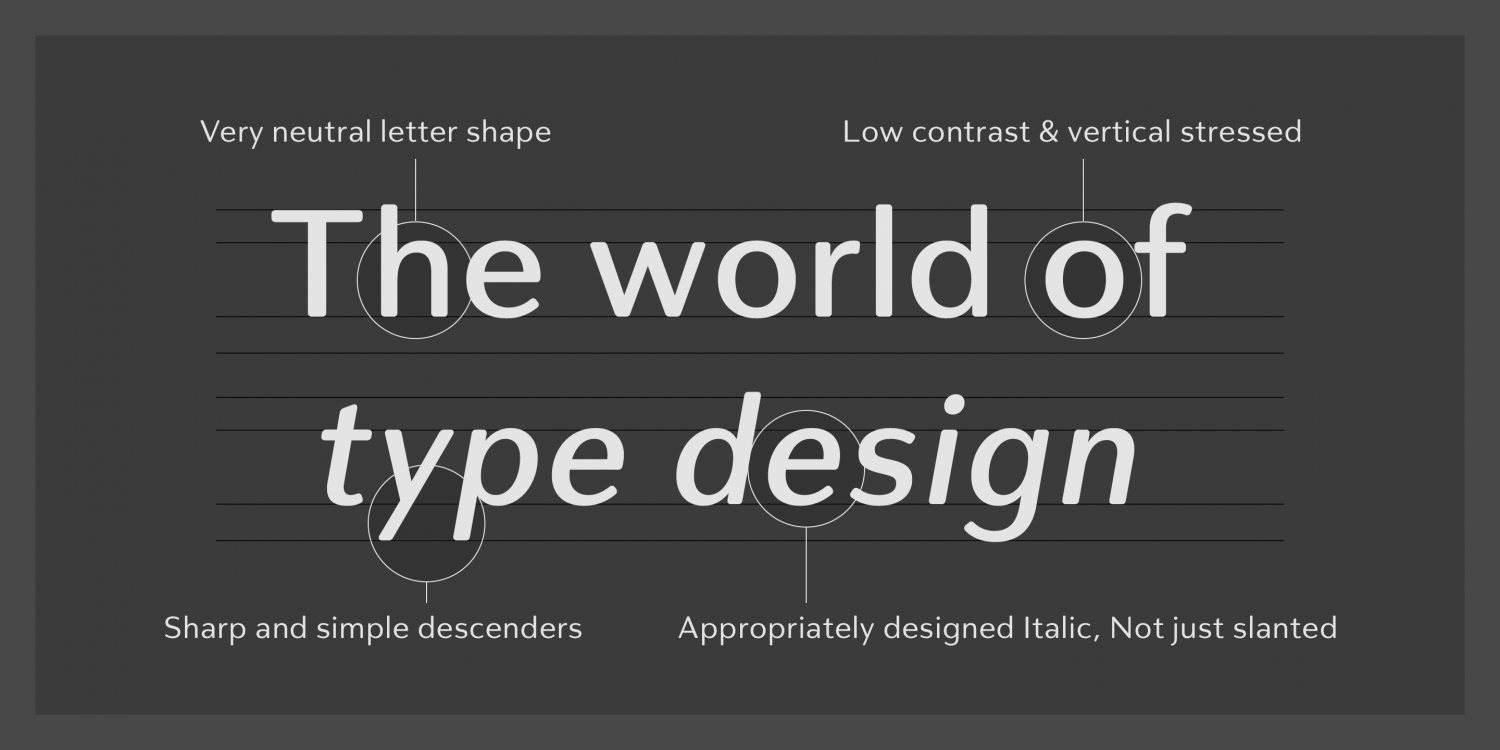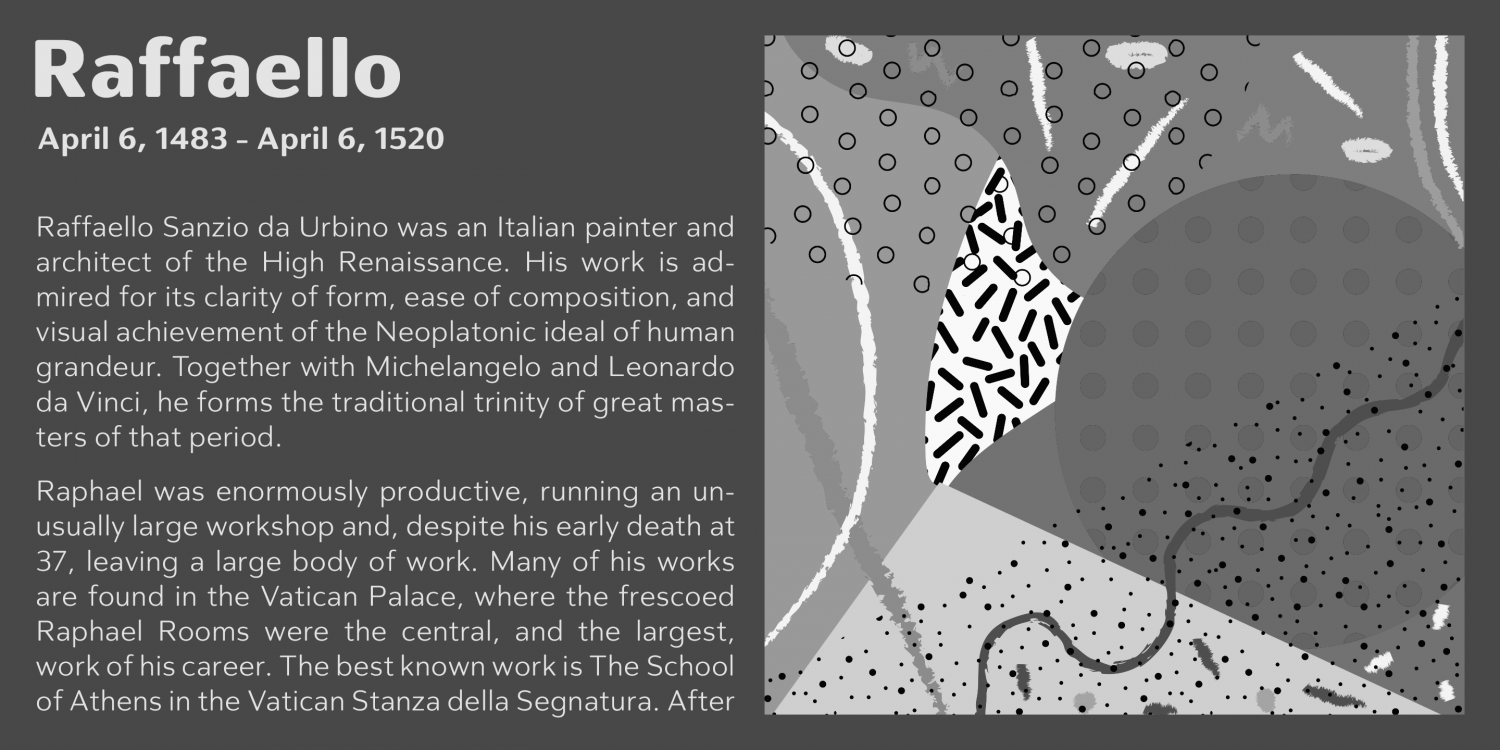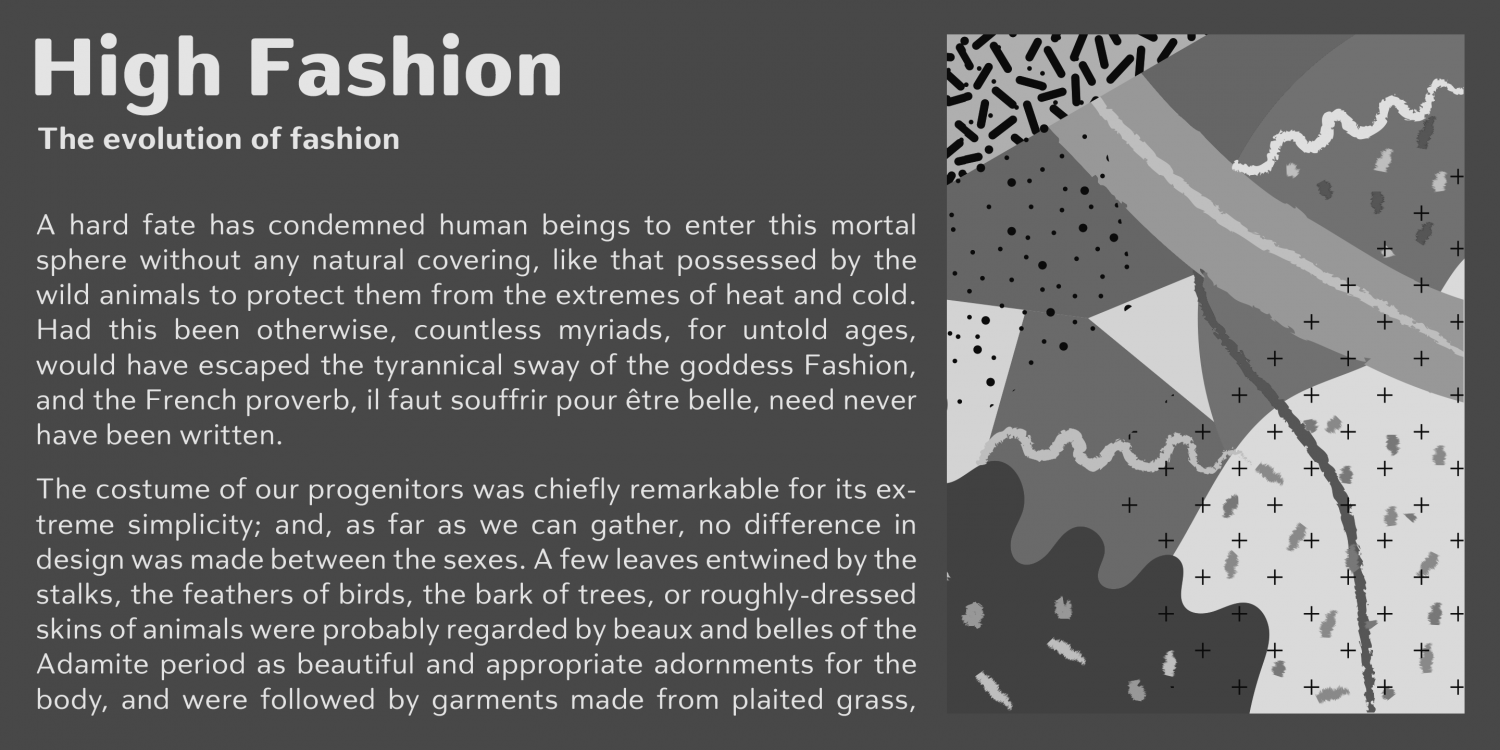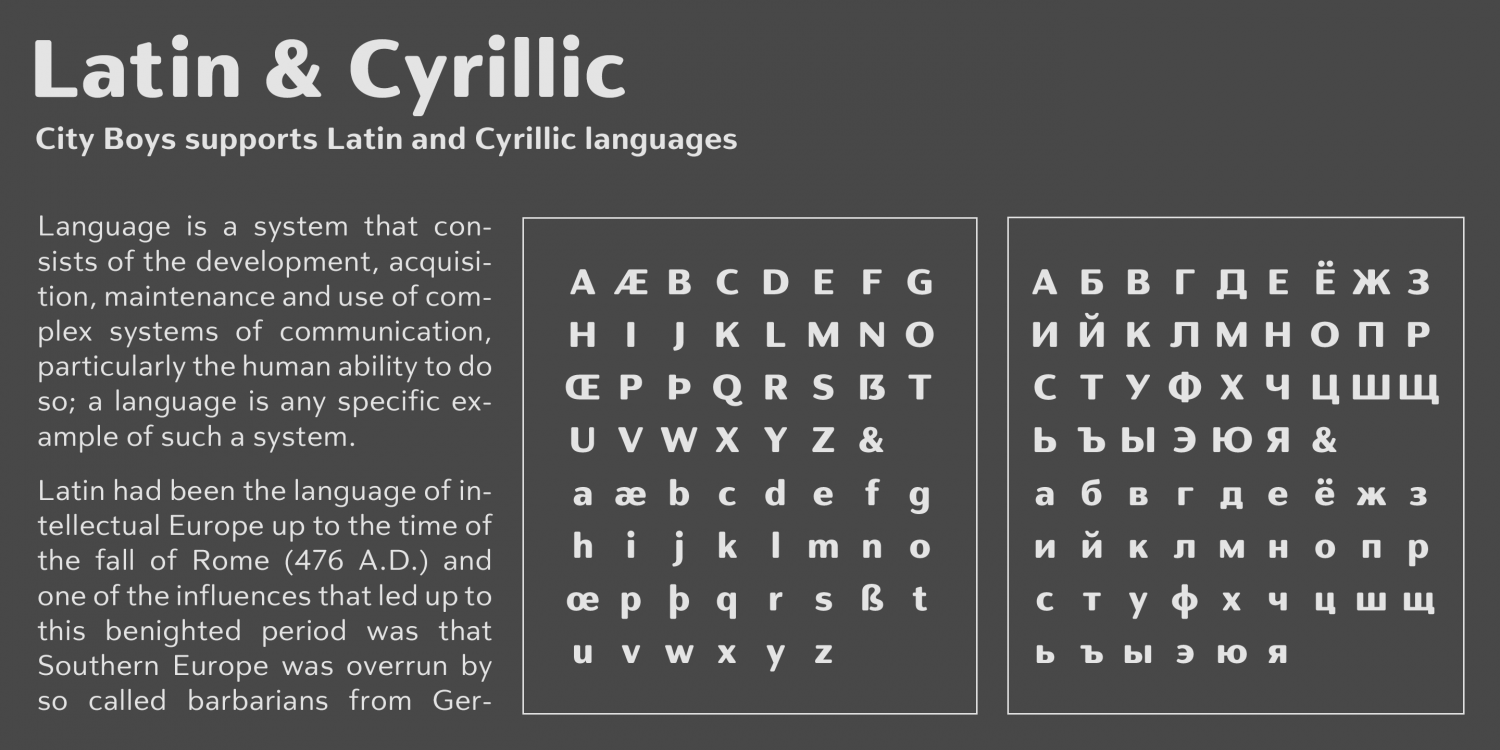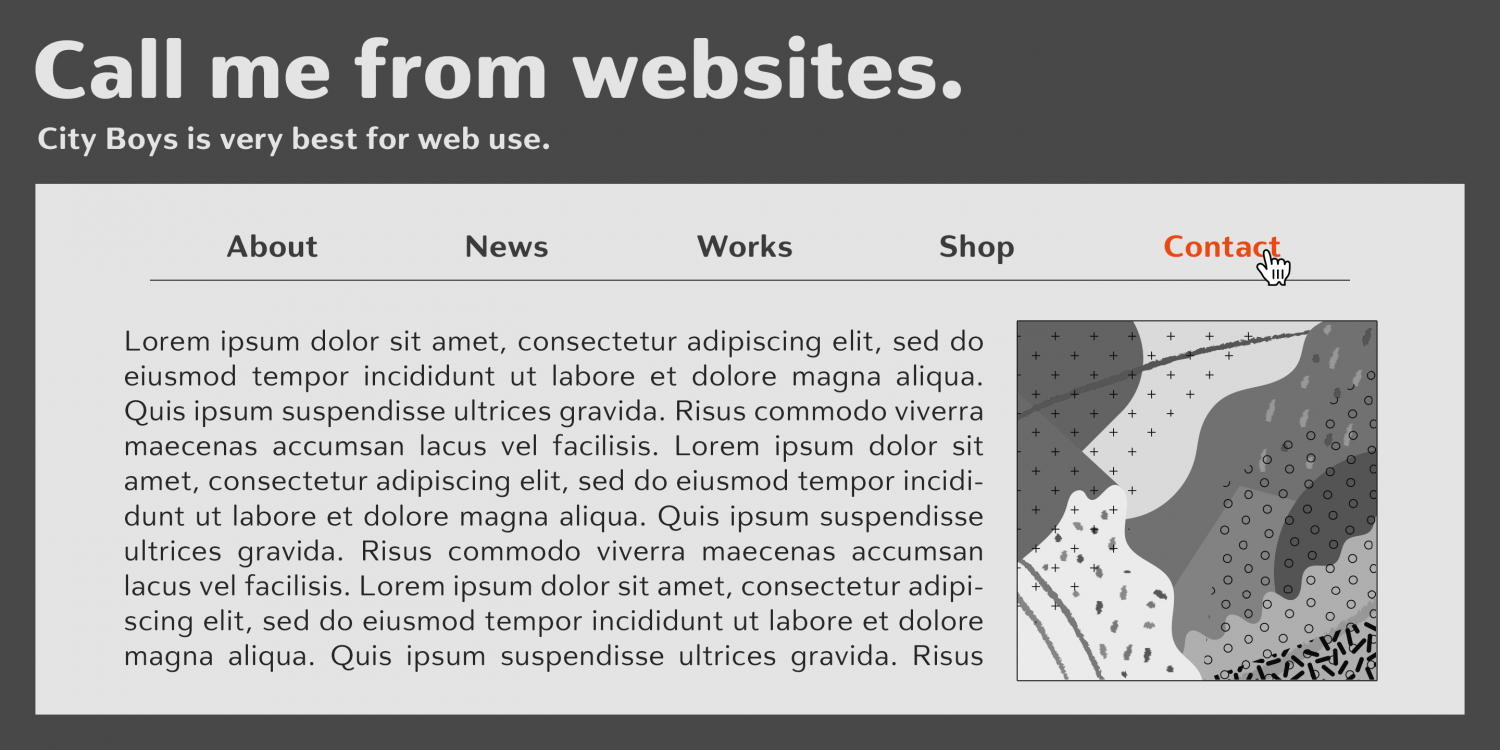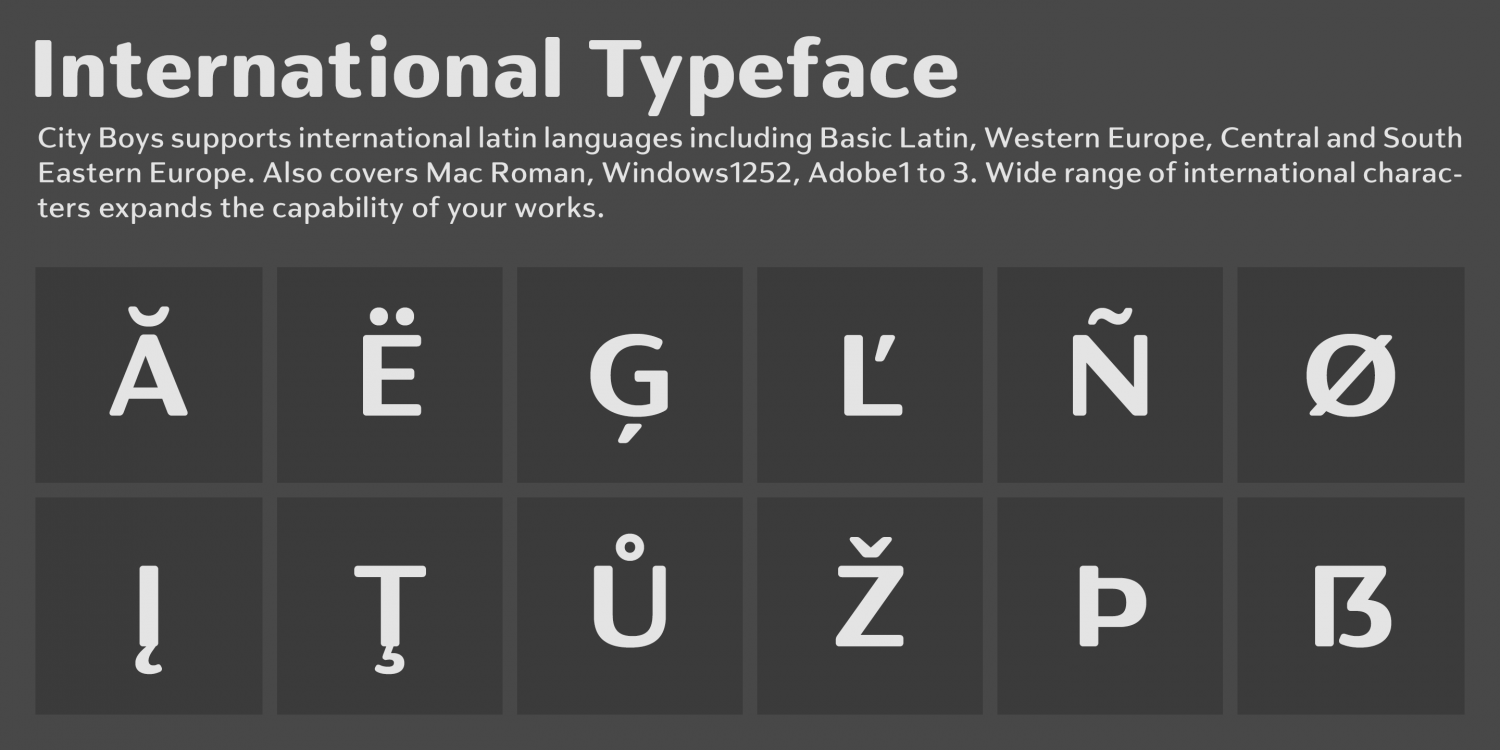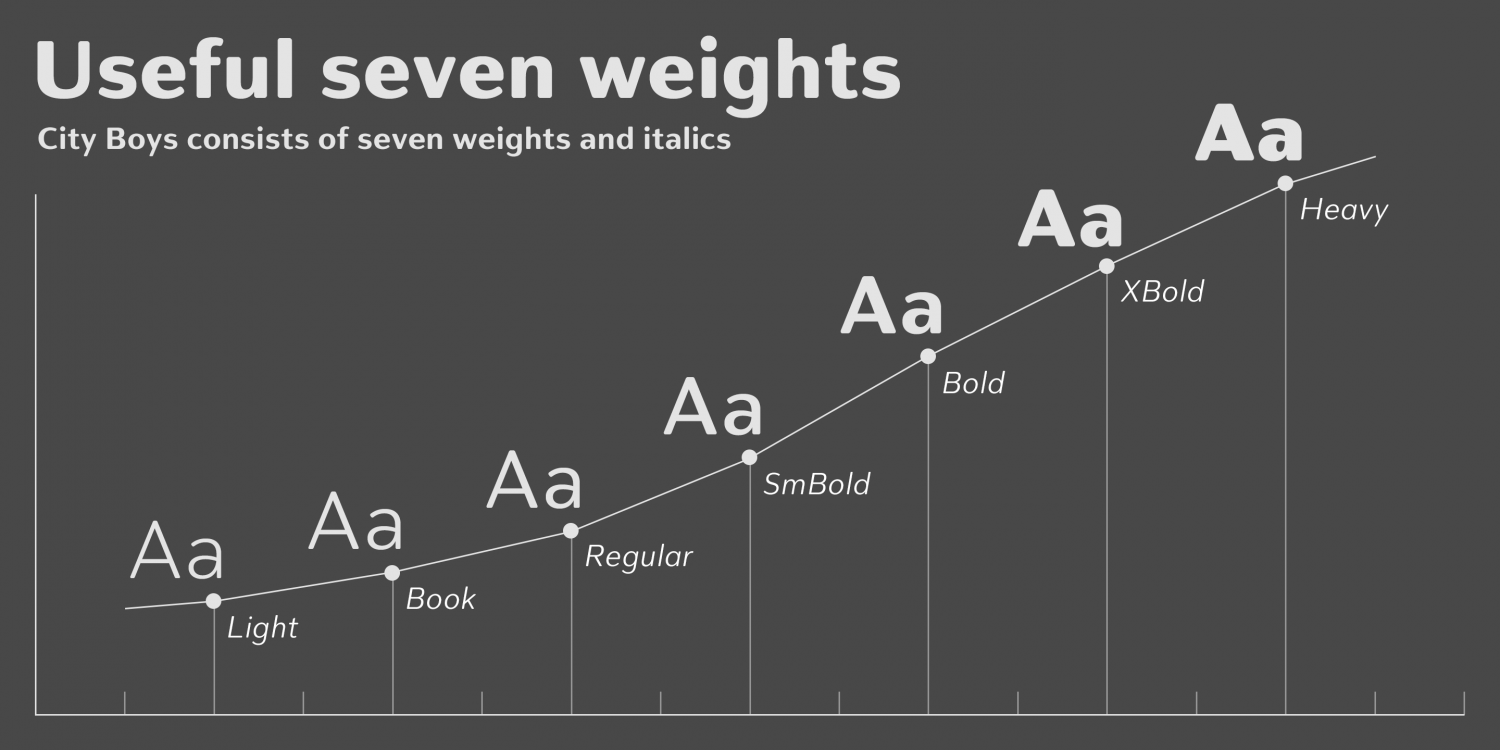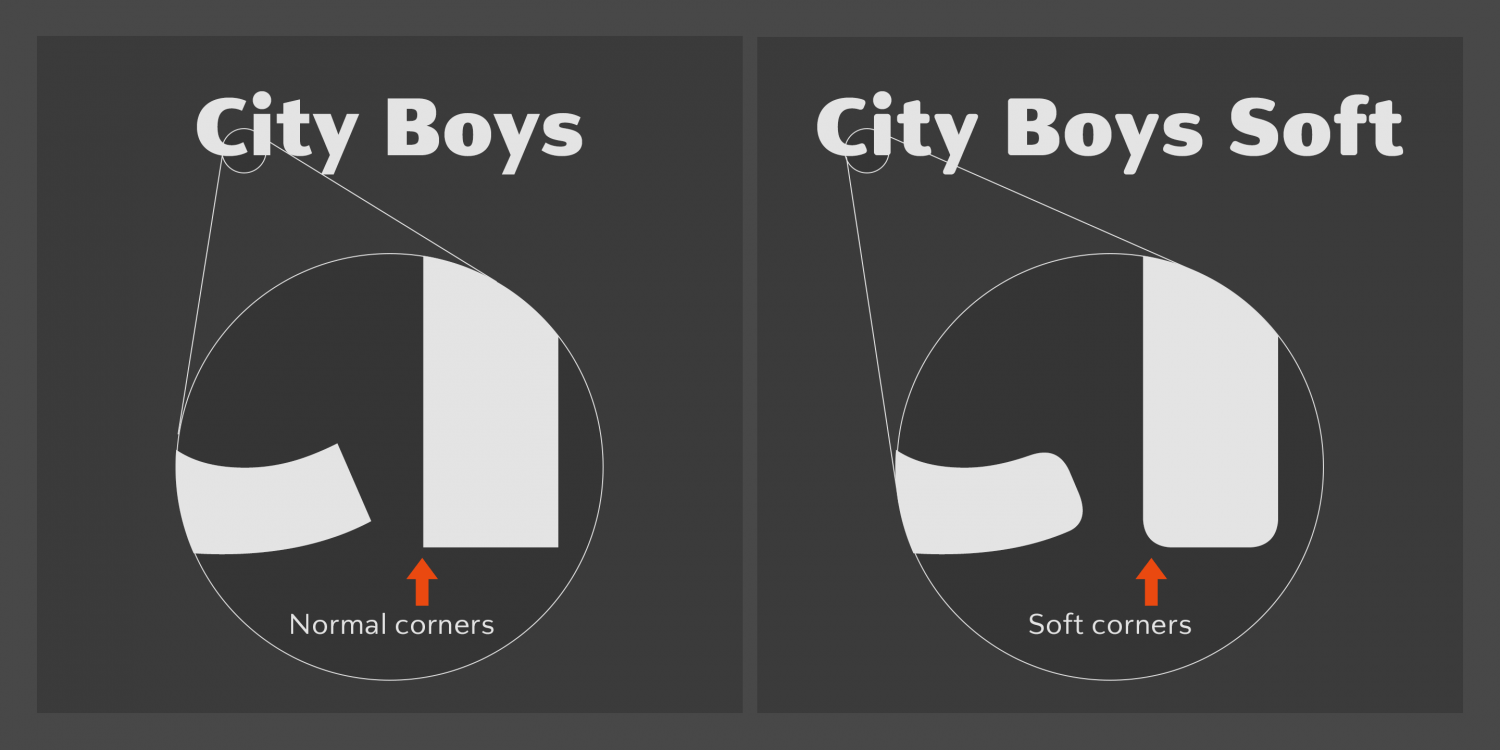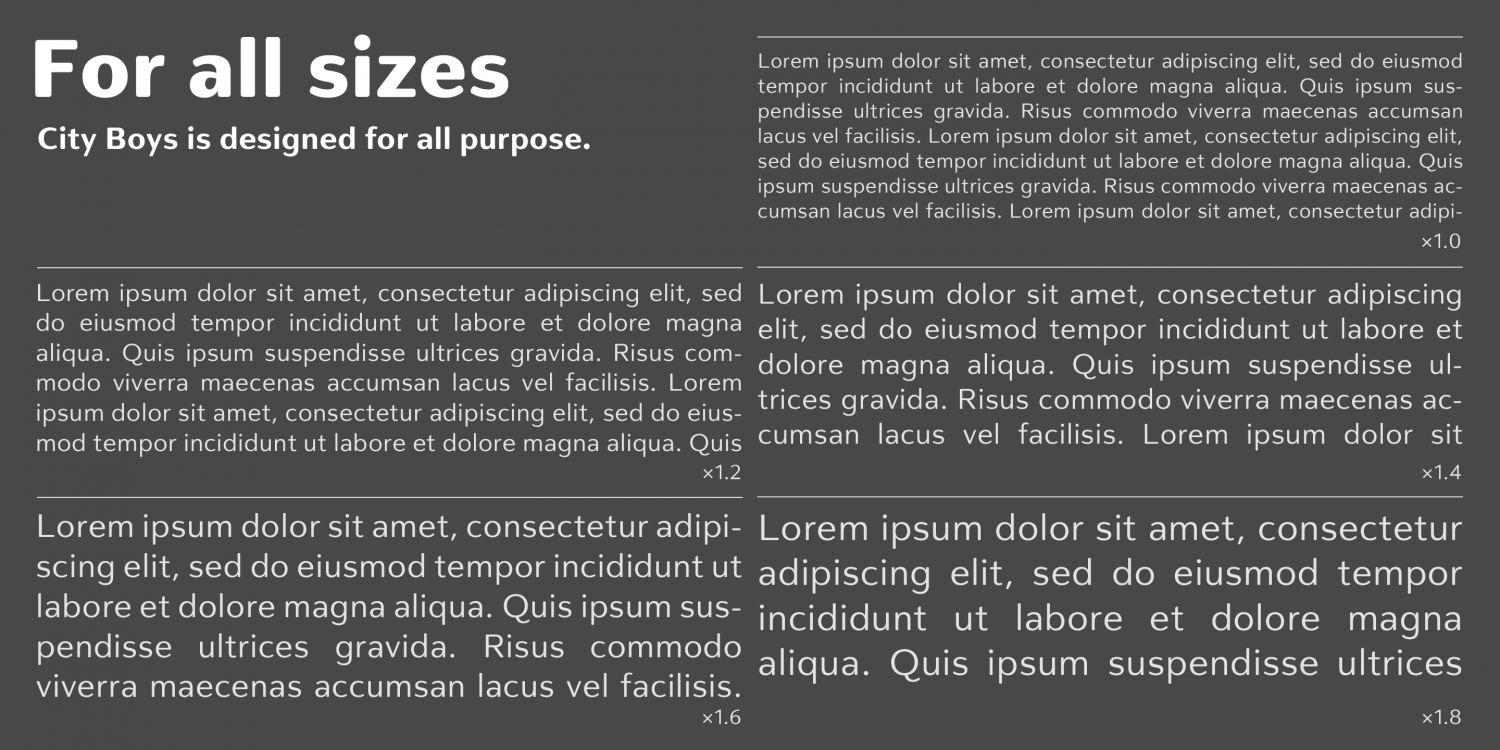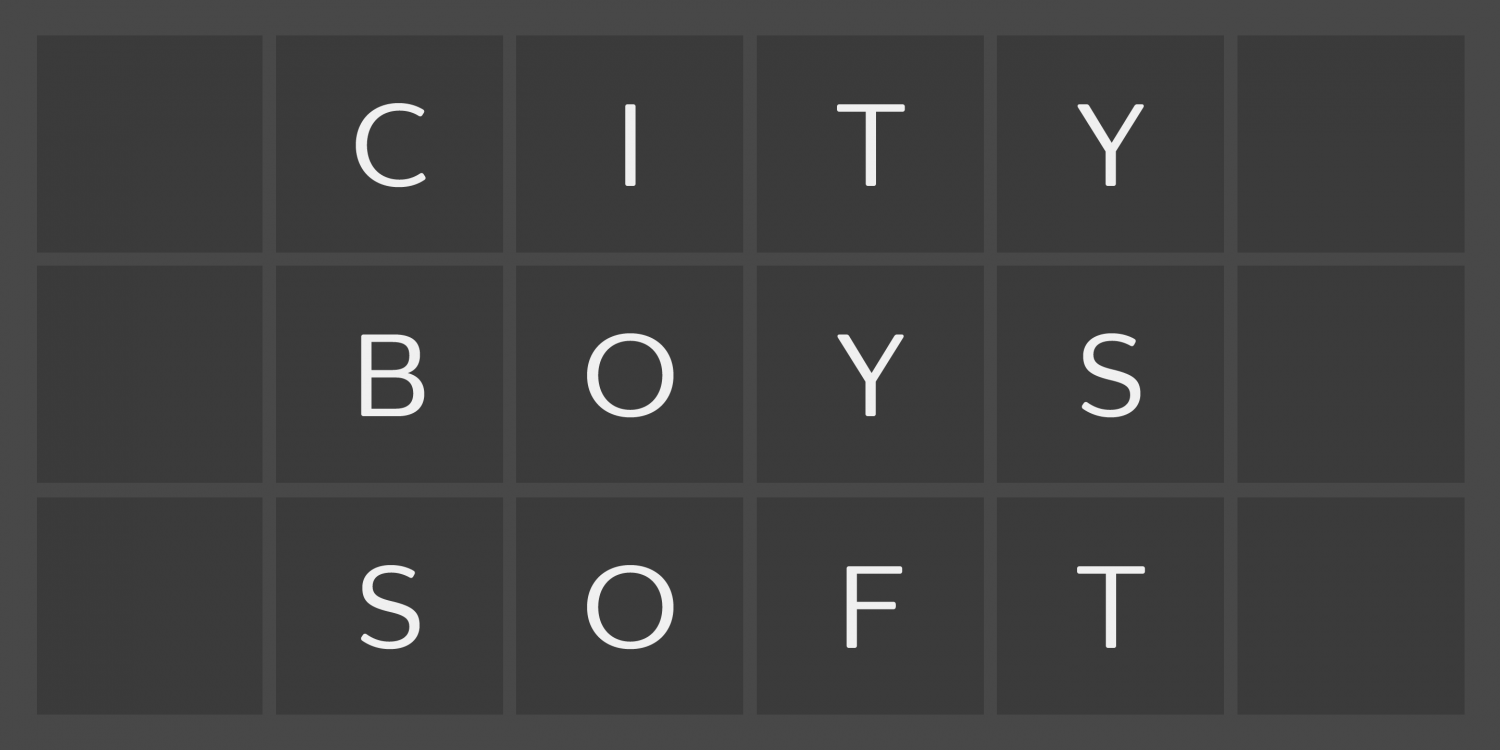
City Boys Soft
About City Boys Soft
City Boys Soft is a fashionable contrasted sans-serif that can be used in almost any situation. City Boys has basic, natural and neutral letterforms and skeletons for a wide range of usage. The glyphs are somewhat humanist yet they have vertical stress…